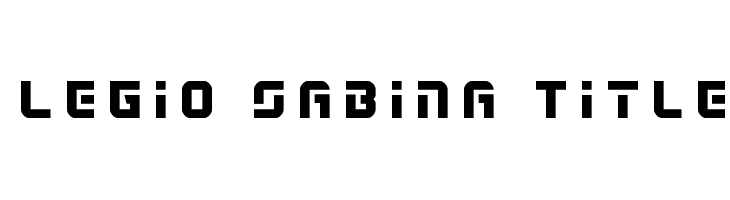
A bold, geometric font with a modern, industrial style.
( Katz Fontz - katzfonts.50megs.com/kg.html )
A whimsical font with festive characters integrated into each letter.
( Fonts by Edy Wiyono )
A decorative font with floral patterns integrated into the outline of each character.
( London's Letters - www.londonsletters.com/ )
A playful font with cartoon airplane motifs integrated into each letter.
A playful, bold handwritten font with rounded, informal letterforms.
A bold, geometric font with a modern and structured appearance.
A bold, brush-style font with an energetic and artistic appearance.
( Parker Creative - Alan Parker - fontbundles.net/parker-creative )
A sleek, light, and oblique font with a modern and elegant style.
( Glyphobet Font Foundry - glyphobet.net/typography/ )
A highly decorative and artistic font with whimsical, abstract elements.
( Fonts by Letterayu )